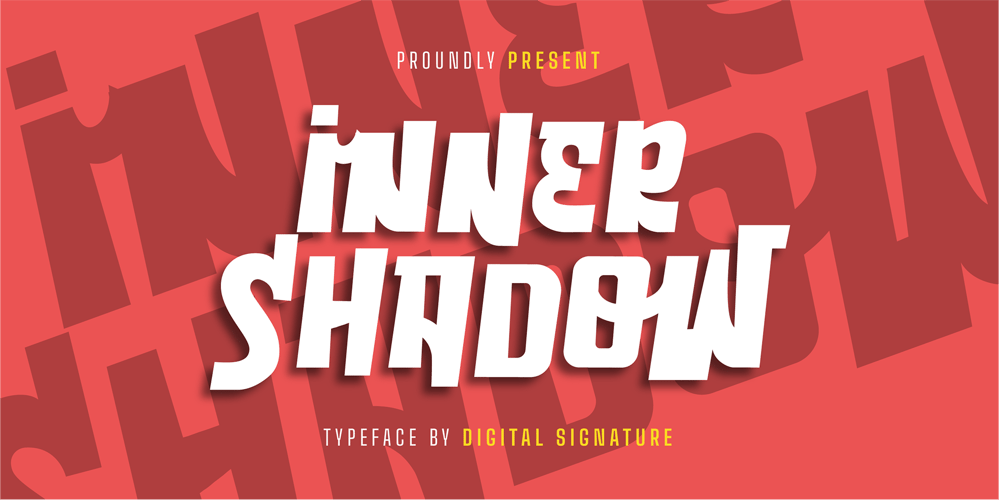
Inner Shadow Font Family was designed by Amrullah Medan, Amrullah, Dedi Purwanto and published by Ably Creative. Inner Shadow contains 1 styles and family package options. inner shadow is a great display font that brings out a street art vibe. the inner shadow appears in capital letters and a unique variety of ligatures. Inner Shadow is a graffiti font that combines the improvised qualities of urban graffiti with the subtlety and regularity of typeface. the inner shadow is spaced letter to letter individually so spacing will work smoothly, regardless of irregular shape expression and also includes a decorative font, which has clouds, underlines, arrows, crowns, halos, and more to add flavor. on your design.